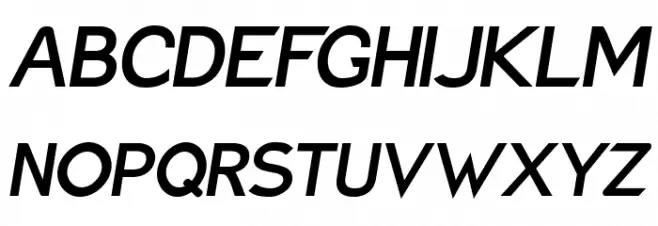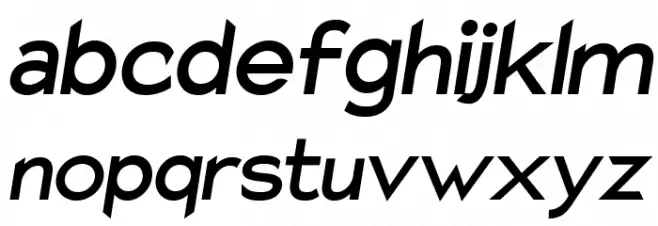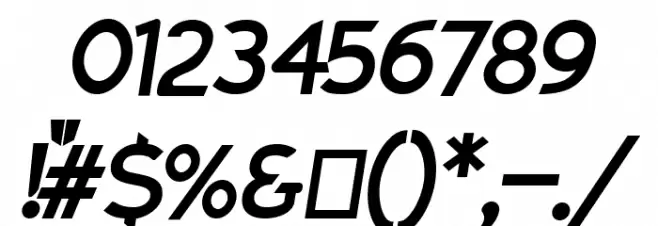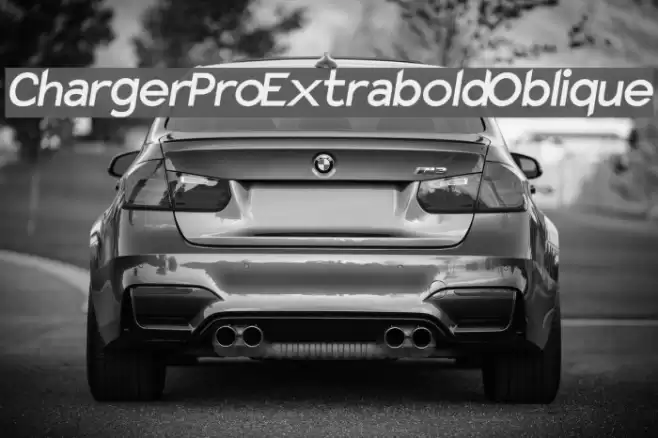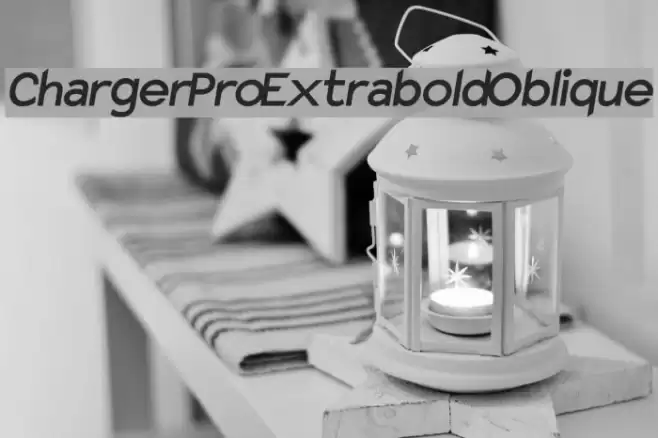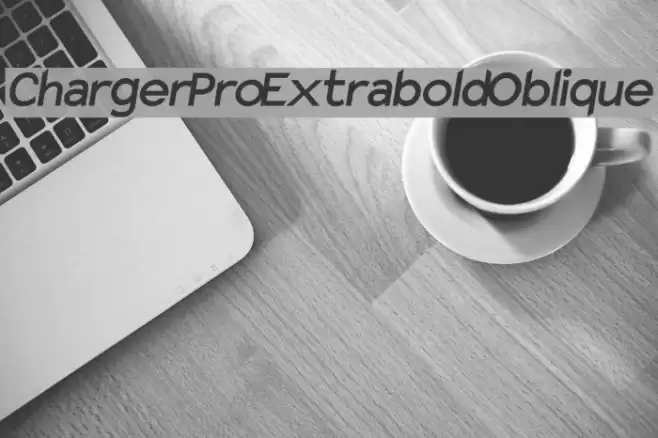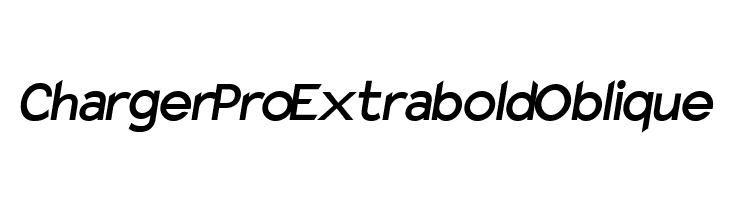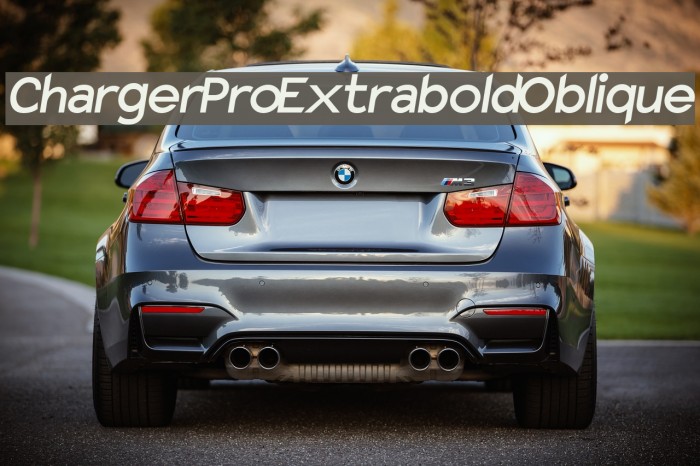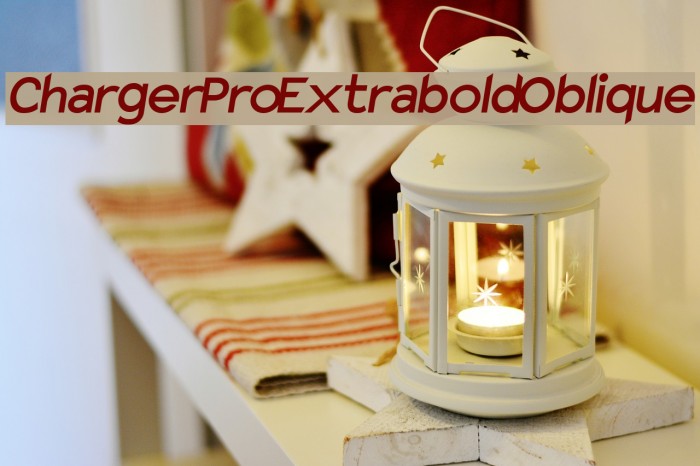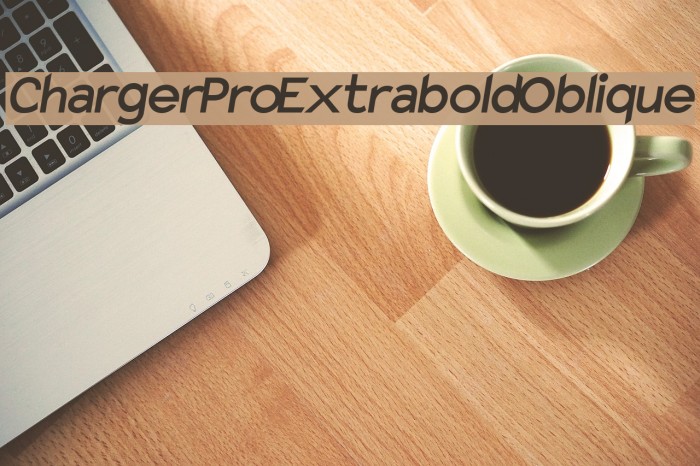
Charger Pro Extrabold Oblique
This font exhibits a dynamic and modern style with a strong emphasis on boldness and oblique angles. The characters are designed with a forward-leaning slant, giving a sense of motion and energy. The strokes are thick and consistent, providing a robust appearance. The uppercase and lowercase letters maintain a uniform width, ensuring readability while adding a sleek, contemporary touch. The numerals and special characters are crafted with the same bold and slanted characteristics, making them stand out distinctly. This font is ideal for projects that require a bold statement with a modern edge.
A bold, oblique font with a modern and dynamic style.
- Proposed Projects: Ideal for branding, advertising, sports team logos, and dynamic headlines.
- Use Case: Headlines, Logos, Branding